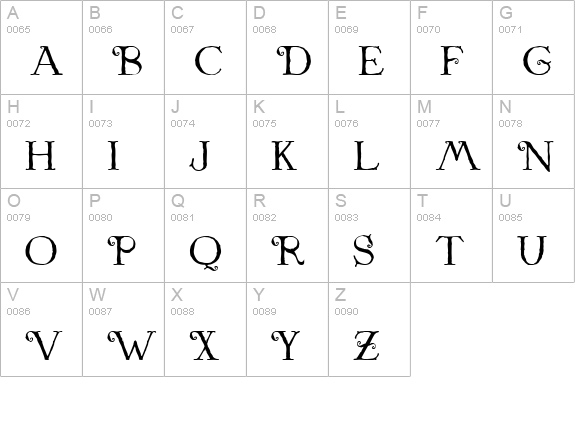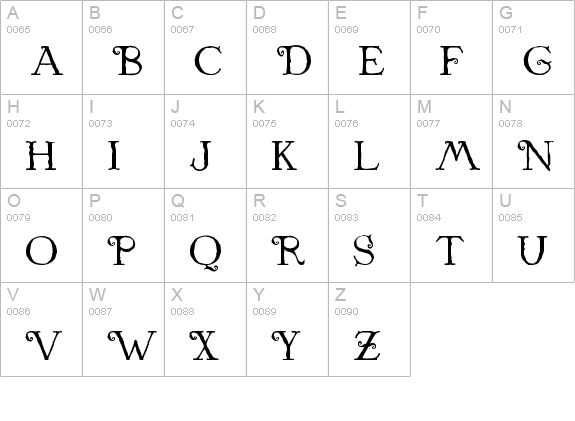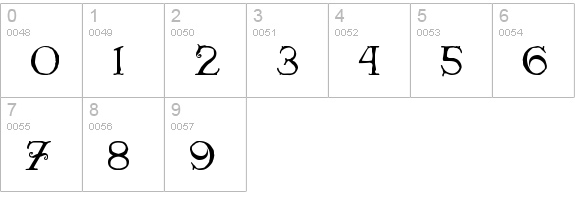
St. Nicholas Font Details
Introducing the remarkable St. Nicholas font, a magnificent display of elegance and charm that will captivate your imagination. This timeless typeface effortlessly combines classic elements with a modern twist, making it the ideal choice for a wide range of design projects. With its delicate strokes and graceful curves, St. Nicholas exudes a sense of sophistication and refinement, making it perfect for invitations, greeting cards, logos, and branding materials. Its versatility allows it to seamlessly adapt to both formal and informal contexts, effortlessly conveying a sense of style and professionalism. This font's impeccable craftsmanship is evident in every letterform, each meticulously designed with precision and care. Its smooth lines and balanced proportions create a harmonious balance that is pleasing to the eye, ensuring legibility and readability in any size or format. And the best part? St. Nicholas is absolutely free! Yes, you heard it right. This extraordinary font is freely available to download at FontsMarket.com, your go-to destination for high-quality fonts. Embrace the opportunity to add a touch of refinement to your designs without breaking the bank. Whether you are a professional designer, a creative enthusiast, or simply someone who appreciates beautiful typography, St. Nicholas is the font that will elevate your projects to a whole new level. Download it today and unlock a world of endless possibilities, where elegance and creativity seamlessly merge.